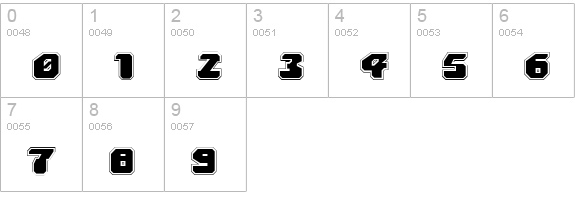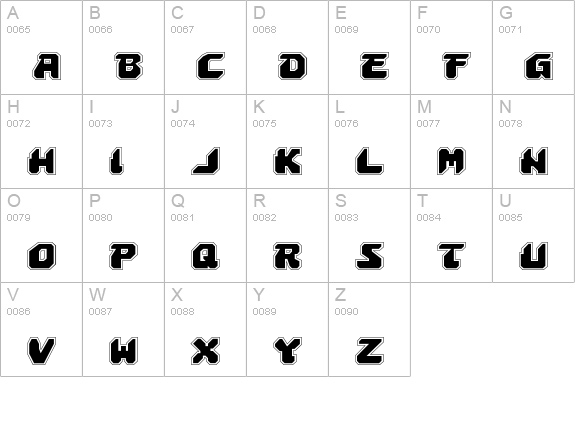
Astropolis Academy font is a modern and stylish typeface that exudes sophistication and elegance. With its sleek lines and sharp edges, this font is perfect for creating eye-catching designs that demand attention. Whether you're designing a poster, logo, or website, Astropolis Academy font will add a touch of class to your project. What sets Astropolis Academy font apart is that it is available for free download at FontsMarket.com. This means you can access this high-quality font without having to spend a penny. With its versatility and modern aesthetic, Astropolis Academy font is a must-have for any designer looking to elevate their work to the next level. Download it today and unleash your creativity with this stunning typeface.